Choosing a font is the most important part of creating a t-shirt design that looks good and that you or your customers will be excited to wear.
With thousands of fonts to choose from, you may find yourself wondering where to begin when it comes to choosing the right font for your t-shirt design.
Discover how to pick the best t-shirt fonts for your designs with this article. It’s packed with tips and includes a list of our current favorite fonts to get you started. Let’s dive in!
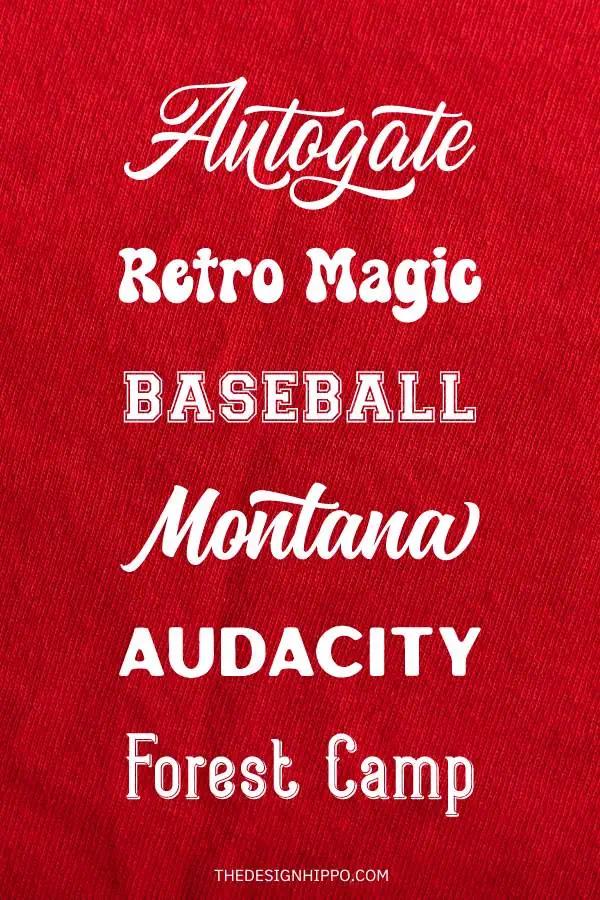
Best Fonts for T-Shirts
With such a wide range of fonts to choose from, it can feel a little overwhelming to spend a lot of time searching the internet for the perfect font to use in your design.
Luckily, we’ve done the hard work for you. The list of fonts below are some of the most popular fonts creators and designers currently love.
Check them out below to find the perfect one for your next t-shirt design project.
Montana
Best T-Shirt Font Overall
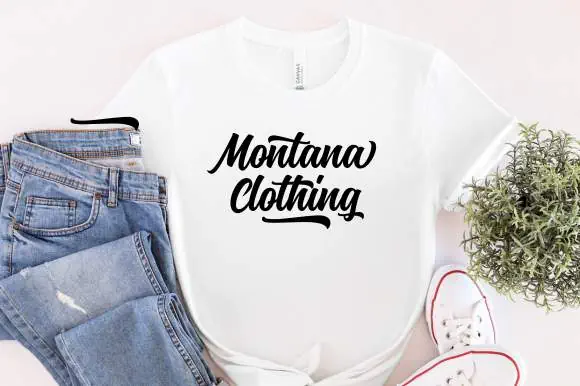
Montana is a stunning cursive font that comes in a smooth version.
It’s a versatile two-for-one font that’s an excellent choice for a wide range of designs and will give your shirt a personal handwritten touch.
Retro Magic
Most Popular Font for T-Shirts
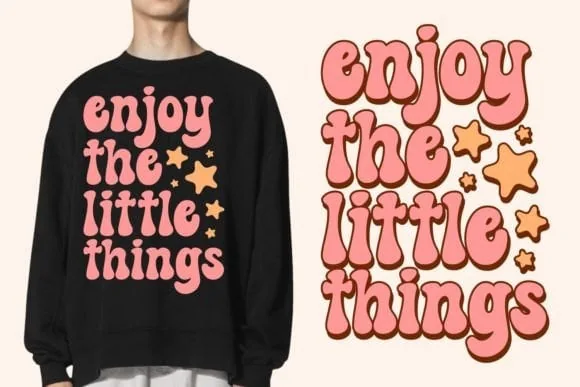
Retro Magic is a cute font that will make any vintage-inspired design pop.
The bold letters are easy to read, which makes this font an ideal choice for t-shirt graphics that use quotes or short phrases.
Berson Dream
Best T-Shirt Font for Cricut
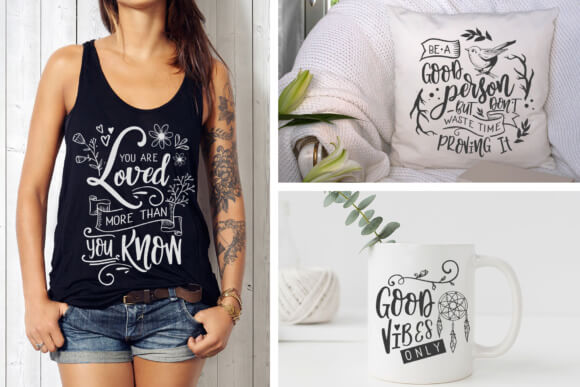
Berson Dream is an elegant font family of three complementary fonts in script and sans-serif styles. The extras include ligatures, swashes, and ornaments.
The smooth style of the letters means that this text will be easy to cut using your cutting machine and will also be easy to work with during the weeding process.
College
Best Font for Names
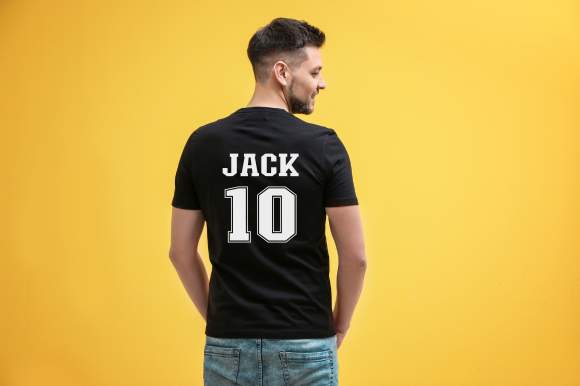
College is (as the name suggests) a collegiate-style font that’s an ideal choice for school and sports-inspired shirt designs.
From team jerseys to class t-shirts, this font gives any shirt design a spirited look.
Autogate
Best Font for Logos
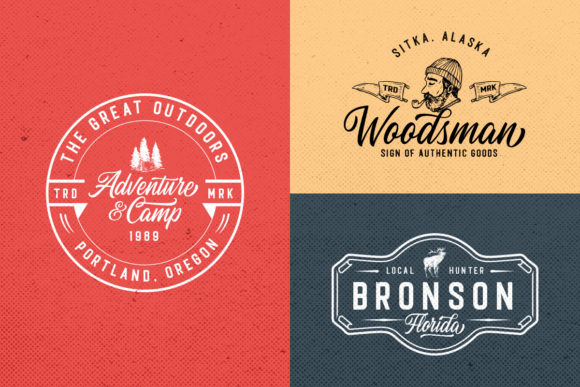
Autogate is a font duo consisting of a script font and a sans-serif font that perfectly balances each other out. That’s why it’s the top pick for creating t-shirt logos.
Both fonts also come with smooth and textured variations. Whether your shirt’s design is classic and sleek or rustic and rugged, the fonts will fit perfectly into the shirt’s overall look.
Audacity
Best Font for Text
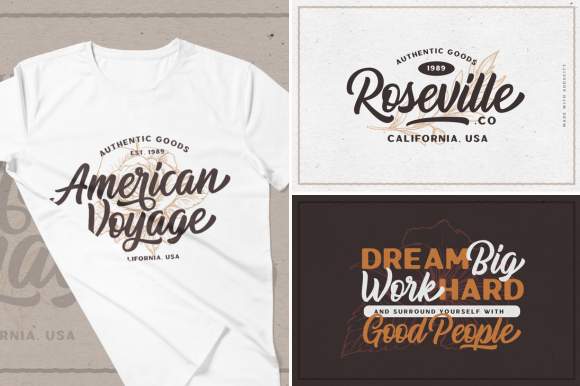
Audacity is a font duo that includes a rough sans-serif font and a hand-lettered script font that balances each other out perfectly.
It’s a solid choice for designs made up mostly of text because the fonts can be arranged to create beautiful messages that are also easy to read.
Blackport
Best for T-Shirt Printing
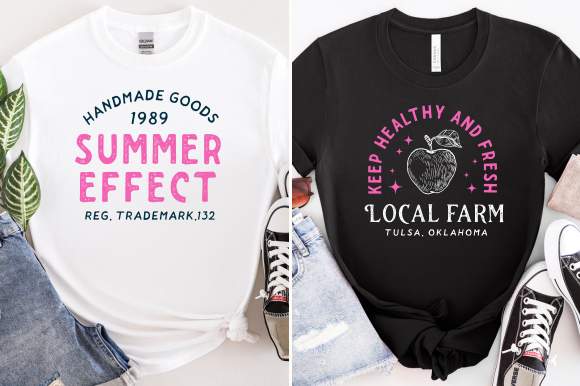
Blackport is a font family consisting of five unique fonts. The bold, clean lines of the letters make this font ideal for almost any method of t-shirt printing.
Whether you’re a DIY enthusiast making shirts for a personal project or a professional working in an industrial setting, this font pack is perfect for t-shirt printing at all levels.
Forest Camp
Best for Vintage T-Shirt Designs
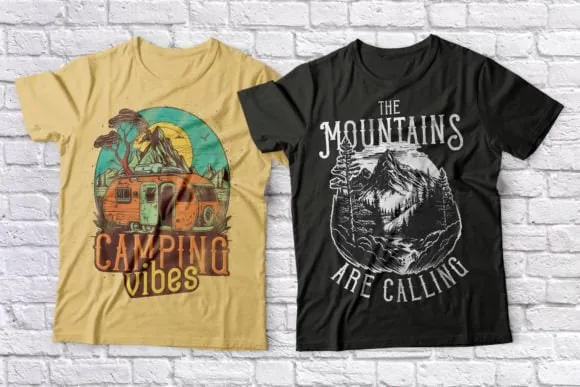
Forest Camp is a vintage-style font duo that comes in six different styles and includes alternates for all uppercase letters.
The overall aesthetic of this font is perfect for vintage t-shirt design because the slim design of each character makes it easy to arrange the text around images or illustrations.
The result is a shirt design that looks like a vintage poster.
Edo
Best Font on Canva
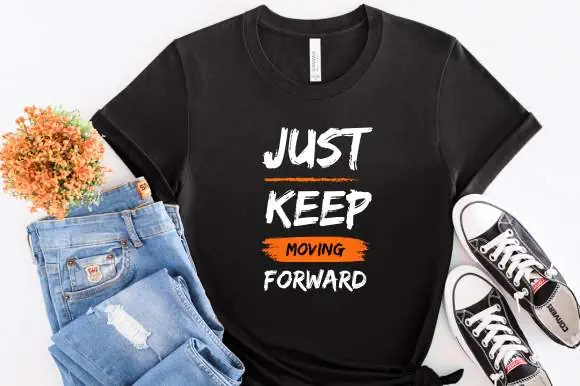
The Edo font in Canva is a bold brush font that’s perfect for t-shirt designs with a grunge aesthetic.
This all-caps font is best suited for designs with single words or short phrases because using too many words can make the design difficult to read.
If you find that this is the case for your design, consider pairing this font with a simple sans-serif to balance it out.
What to Look for in a Font for T-Shirts?
Choosing the right font for your t-shirt is the key to ensuring your design looks its best. Hereโs what you should look for when selecting your t-shirt font:
- Readability: The most important characteristic of the font you choose is its readability. You want to make sure that people can read your design, so avoid overly decorative fonts and choose fonts that are bold, clear, and easy to read.
- Print Quality: You also want to ensure that your font will look good when printed on a shirt. Use bold, clear, and legible fonts so that you’ll have a high-quality print for your shirt.
- Design Style: When choosing a font, think about the overall aesthetic of your design and the message your design is sending. By matching the style of the font to your shirt, youโll ensure that your final product looks great.
What is the easiest font to read on a shirt?
The easiest fonts to read on a shirt are either sans-serif or serif fonts. These fonts are a popular choice because they look best on any type of text that may be used in a design, whether the text is large or small.
Script or decorative fonts are difficult to read in small text, so if you use them, make sure they are used only in large text or in the biggest area of your design.